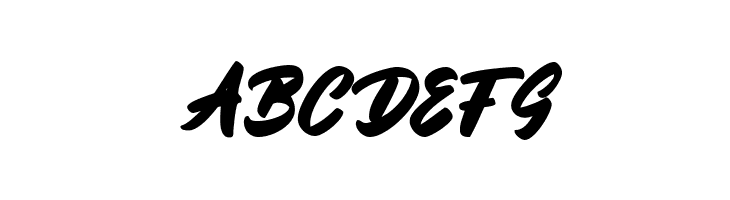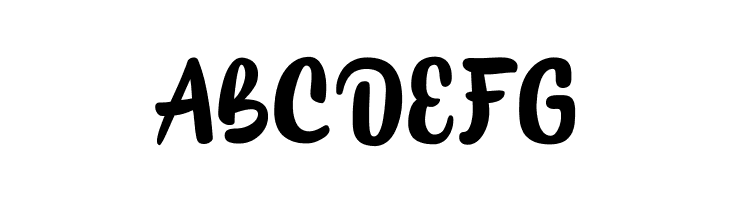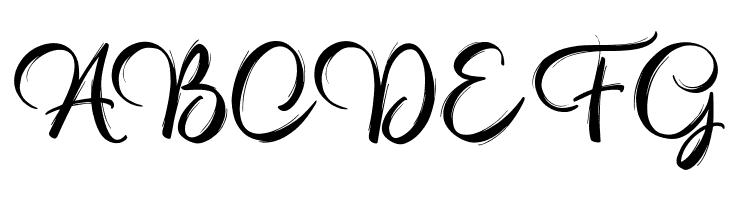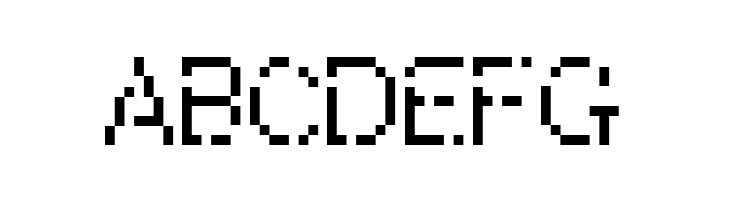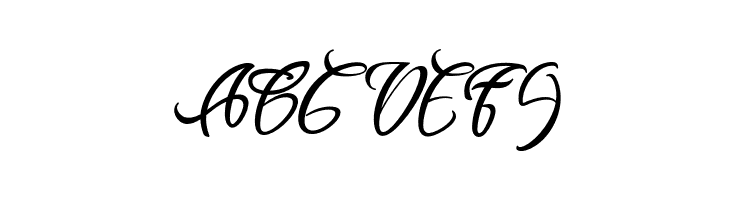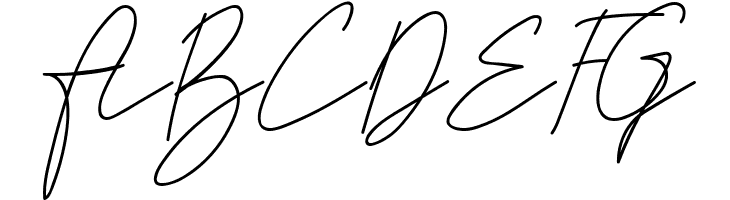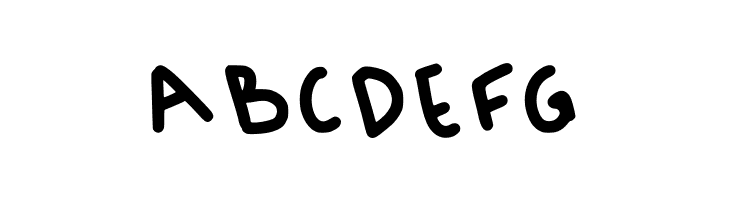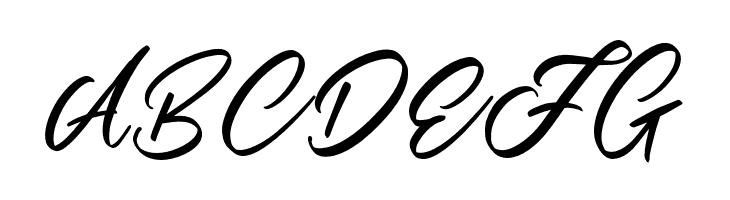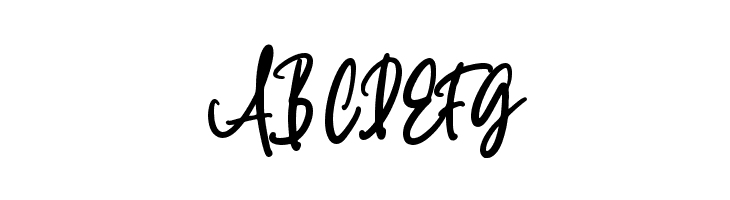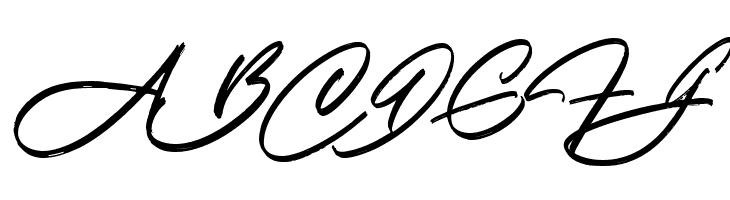
A bold, dynamic script font with a handwritten, cursive style.
A bold, playful script font with a handwritten feel.
A bold, expressive script font with a dynamic, hand-drawn style.
A pixelated, retro-style font with a digital, blocky appearance.
A sophisticated script font with flowing, calligraphic letterforms and high contrast strokes.
A fluid, cursive script font with a natural handwriting style.
A playful, handwritten font with bold, rounded strokes and a casual style.
A flowing, cursive script font with bold strokes and medium contrast.
A bold, cursive script font with a lively and energetic style.
A dynamic, cursive script font with a fluid, handwritten style.